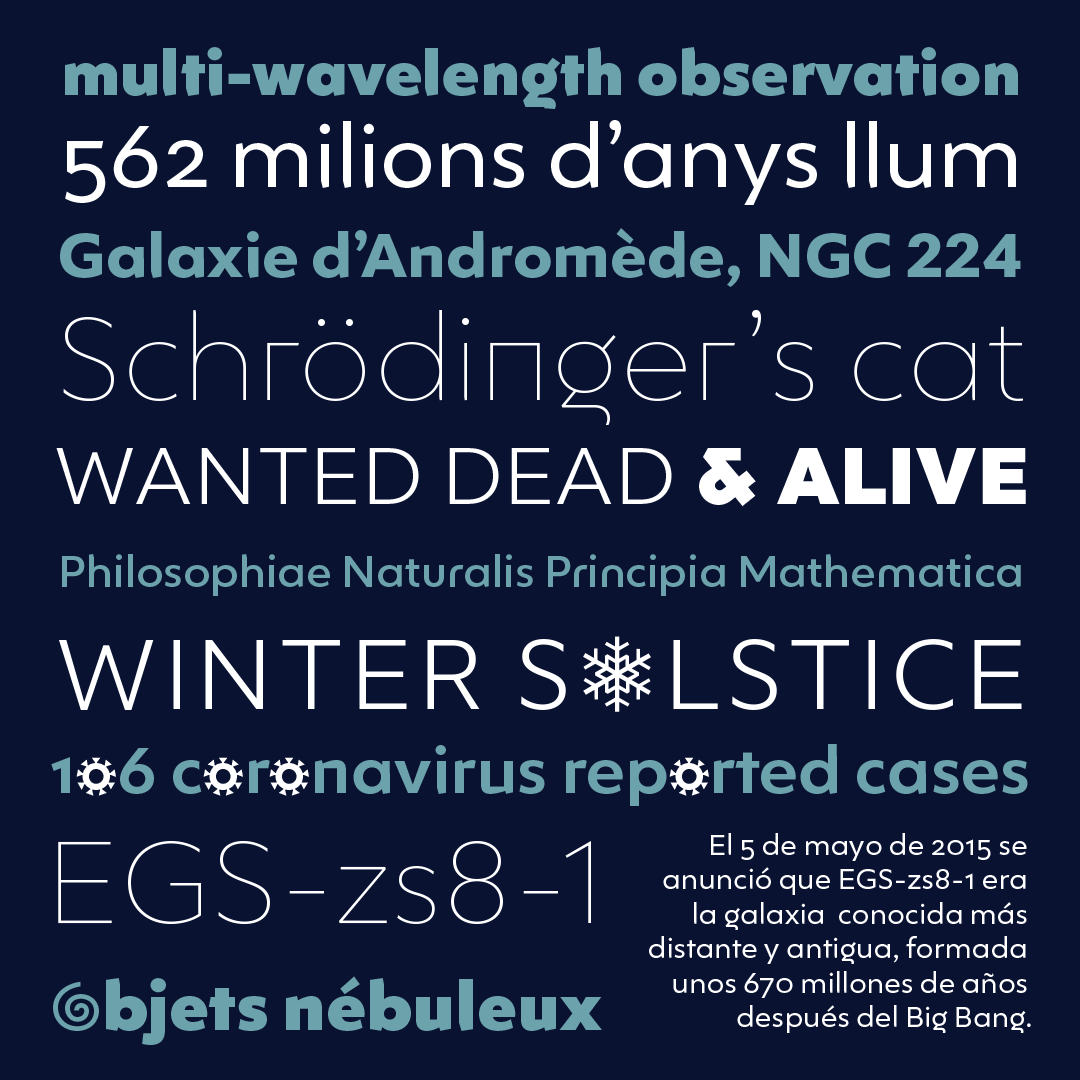
Ingeo Tifinagh Font
The reason Ingeo Tifinagh Font is genuinely exciting is its successful unification of rigid geometry with calligraphic expressiveness, all while achieving seamless multi-script support. It’s one of the few professional typefaces offering full Tifinagh character support alongside an extensive Latin character set, making it invaluable for projects across North Africa and the global diaspora. Its design philosophy—where geometry defines the interior counters before shaping the exterior contours—results in a uniquely structured and instantly recognizable aesthetic.
The Ingeo Tifinagh Font family is exceptionally comprehensive, featuring a remarkable 9 styles to ensure complete design flexibility. This includes a full spectrum of weights: Thin, ExtraLight, Light, SemiLight, Regular, SemiBold, Bold, ExtraBold, and Black, plus an included Variable Font for even more fine-tuned control. For truly global, modern, and geometrically stunning typography, download the Ingeo Tifinagh Font Free Download today to explore its full potential.